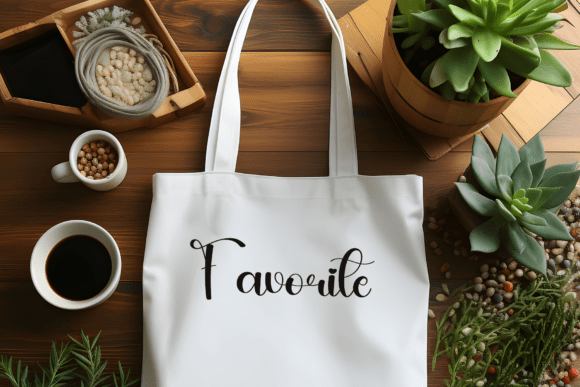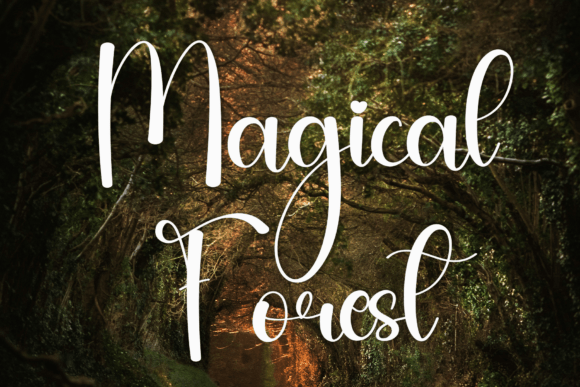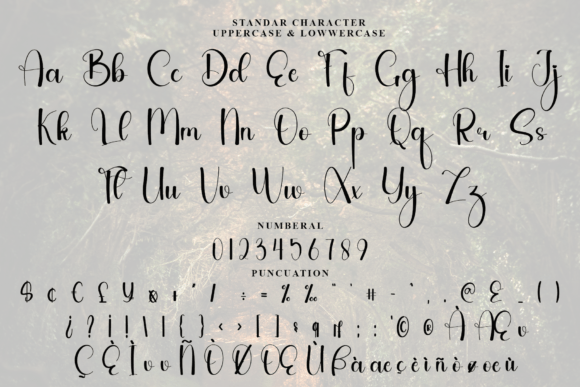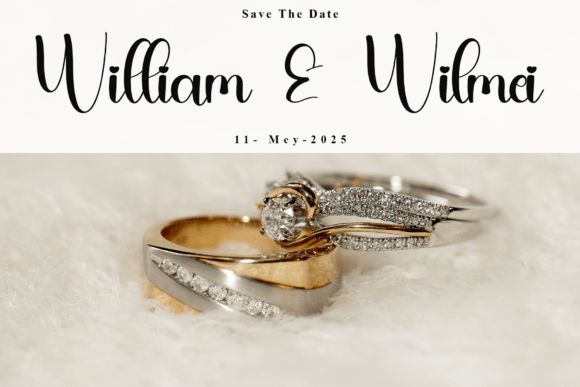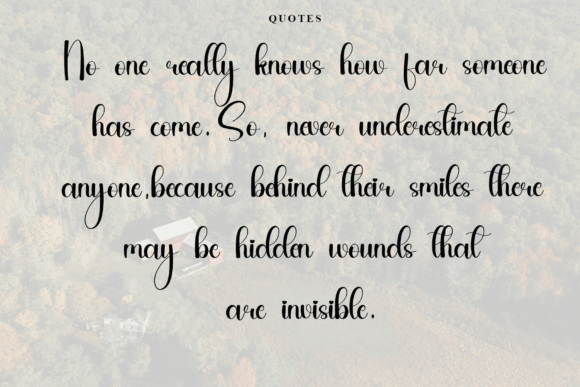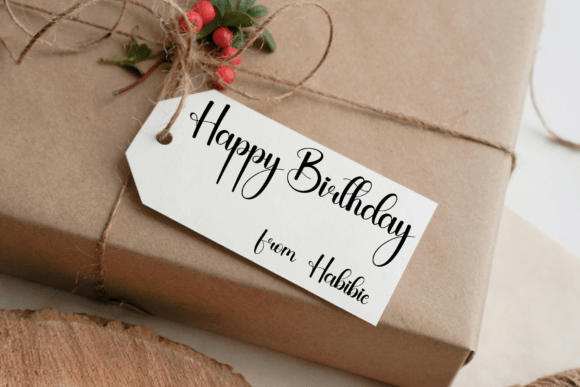
The Art of Handwritten Elegance: Unlocking the Power of Calligraphy Font
Do you remember the moment when you finally found the perfect font for your brand’s logo? The excitement of seeing your words come to life, the sense of pride and ownership that came with it? For designers, this moment is a reminder that the right font can make all the difference. And when it comes to adding a touch of elegance and personality to your designs, there’s one font that stands out from the rest: Calligraphy Font.
This charming handwritten font is more than just a pretty face – it’s a versatile tool that can elevate any design project. With its fluid strokes and organic lines, Calligraphy Font adds a sense of freshness and casual sophistication to your work. Whether you’re creating branding materials, invitations, or social media graphics, this font is sure to leave a lasting impression. As a valuable asset in any designer’s toolkit, Calligraphy Font is a must-have for anyone looking to add a touch of handwritten elegance to their designs.
Key Features of Calligraphy Font
- Unique Characteristics: Features elegant, cursive script with intricate flourishes, making it perfect for formal invitations, wedding stationery, and luxury branding.
Calligraphy Font Review
Overall, I’d say the Calligraphy Font is a beautiful addition to any design project. It’s perfect for creating a luxurious and elegant feel, especially when used in titles and headings.
- Unique and elegant design, perfect for creating a luxurious feel.
- Works well in both digital and print media.
- May be difficult to read in smaller font sizes.
- Not ideal for body text, as it can be overwhelming.
- Some letters may not be easily recognizable, especially for those with vision impairments.
Overall, I’d recommend the Calligraphy Font for projects where you want to make a statement and create a sense of luxury. Just be mindful of the limitations and use it sparingly in body text.
Tips for Getting the Most Out of Calligraphy Font
Use calligraphy font to add a touch of elegance and sophistication to your designs. Experiment with different font combinations and layer styles to achieve a unique look. Use calligraphy font for headings, titles, and quotes to create a visual hierarchy.
Use calligraphy font for: wedding invitations, event signage, branding materials, and social media graphics. It’s also great for creating quotes, posters, and flyers.
Alternatives to Calligraphy Font for Designers
Lobster Font is a fun, cursive font ideal for adding a touch of elegance and sophistication to headings, titles, and quotes. It’s perfect for use in posters, flyers, and social media graphics. Lobster Font is similar to Calligraphy Font in its cursive nature, but it’s more playful and less formal.
Pacifico Font is a beautiful, modern script font that works well for headings, titles, and body text. It’s perfect for use in branding, packaging, and editorial design. Pacifico Font is more refined and elegant than Calligraphy Font, making it suitable for a wider range of design applications.